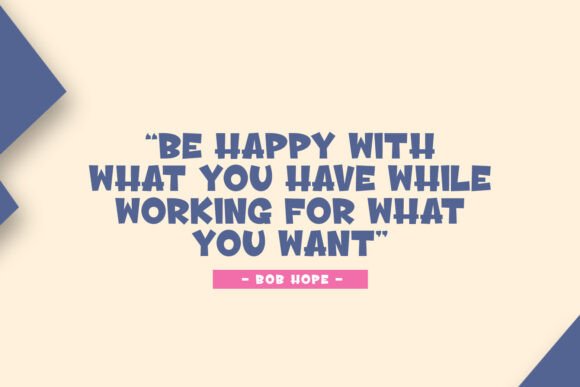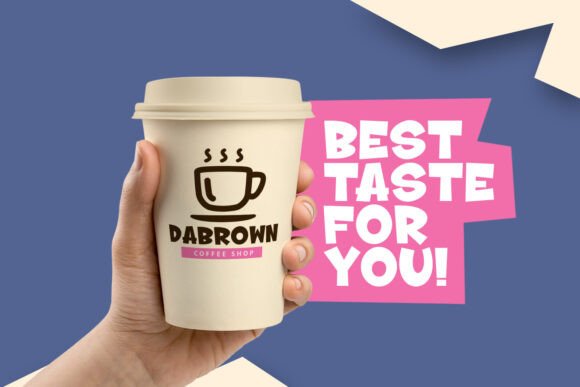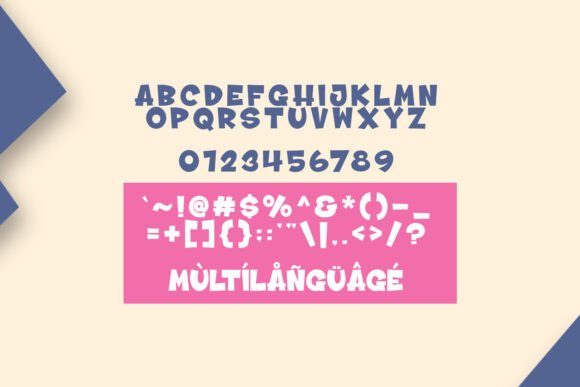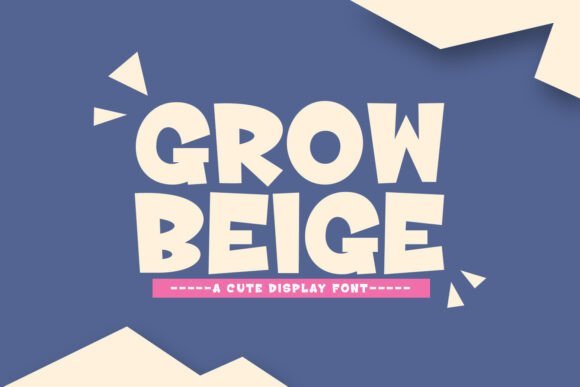
Introduction to Grow Beige Font
Grow Beige is a modern and cute display font perfect for posters, logos, magazines, book covers, banners, and many more.
Get this amazing font, and use it to create lovely designs It can easily be matched to an incredibly large set of projects, so add it to your creative ideas and notice how it makes them stand out.
Key Features of Grow Beige Font
Why Choose Grow Beige Font?
Grow Beige Font offers exceptional quality and versatility, making it a valuable addition to your design toolkit. Whether you’re creating for personal projects or commercial use, Grow Beige Font delivers professional results.